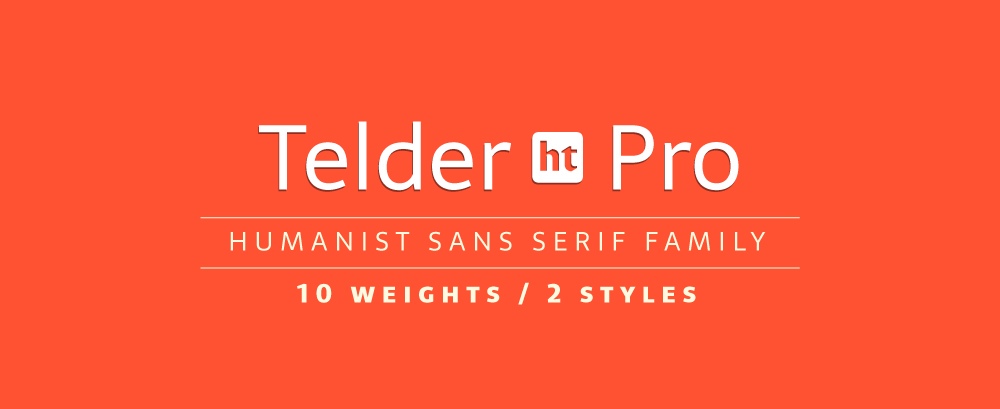
Telder HT Pro Font
Telder HT Pro Font is perfect for high-tech company branding, professional software interfaces, advanced engineering presentations, precision manufacturing communications, cutting-edge research materials, technical documentation systems, modern corporate identities, and sophisticated technology campaigns.
What makes Telder HT Pro Font exciting is its precisely engineered character that embodies the highest standards of technological excellence through meticulously crafted letterforms that reflect the precision and reliability required for mission-critical applications. The font features advanced geometric structures with high-tech details that communicate innovation, technical mastery, and the kind of professional-grade quality that technology leaders demand. Its high-tech aesthetic and professional sophistication make it perfect for organizations that want to communicate technological leadership, engineering excellence, and the cutting-edge innovation that drives industry advancement while creating memorable experiences that showcase technical competence and forward-thinking vision.
Telder HT Pro Font family includes comprehensive high-tech weights ranging from Ultra Light to Black, typically featuring Light, Regular, Medium, Bold, and Heavy variations with corresponding italic styles. The family often includes advanced character sets, technical symbols, and professional features that provide maximum flexibility for sophisticated technology applications requiring precise typographic control and professional presentation standards.
This professionally advanced typeface has gained recognition among high-tech companies and engineering organizations seeking premium typography solutions that reflect technological excellence and professional sophistication. Telder HT Pro Font Free Download provides an excellent opportunity to engineer with this high-tech font before investment. The font's advanced technical specifications include optimized rendering for high-resolution displays, extensive language support, and professional-grade clarity that ensures consistent performance across all technology platforms and professional environments. Whether you're designing for aerospace companies, software development firms, or advanced manufacturing organizations, Telder HT Pro Font delivers the technological authority your project demands. Its versatile nature makes it suitable for various high-tech applications including research institutions, engineering consultancies, technology startups, and precision manufacturing brands, ensuring your typography choices communicate technical excellence and professional innovation while creating memorable brand experiences that celebrate the power of advanced technology and the essential role of engineering precision through its distinctively advanced and authentically high-tech visual character.